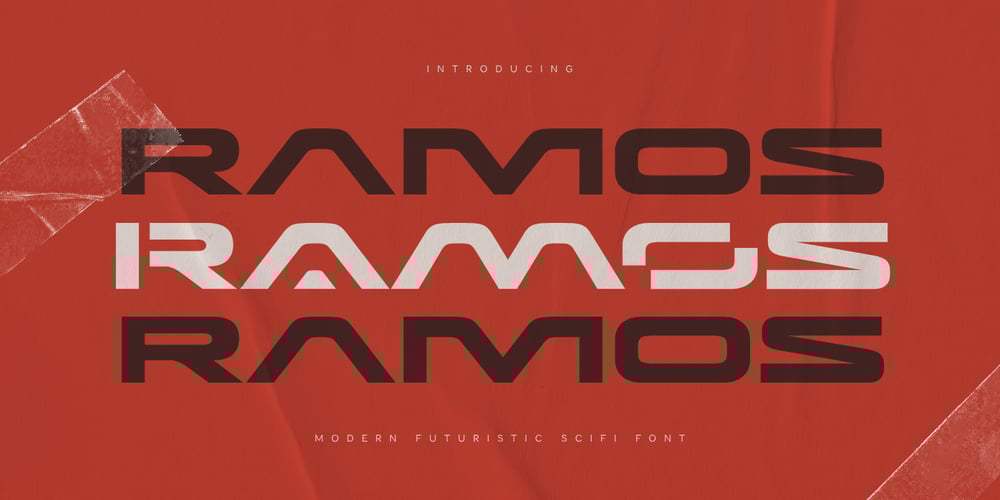
Ramos Font Family was designed by Zamroni Hamzah and published by Sensatype Studio. Ramos contains 1 styles and family package options. RAMOS is a Futuristic Sci-fi font that created special for Sci-fi, Modern, Technology and more stand out typography needs, with extra perfect styles that make your design more Futuristic. It’s so perfect to add your style and headline overview for Cryptocurrency, technology, film, and Sci-fi theme. And specially for this font, we crafted for modern style and technology feels so enjoy to create any project that will show your main idea out.RAMOS Modern Futuristic Sci-fi Font ready with: Futuristic characters prepared to get creative alternatives in Technology theme 4 files format already Preview as a inspirations that you can do with RAMOS font Ready with Technology characters All Uppercase Characters Wish you enjoy our font. ๐